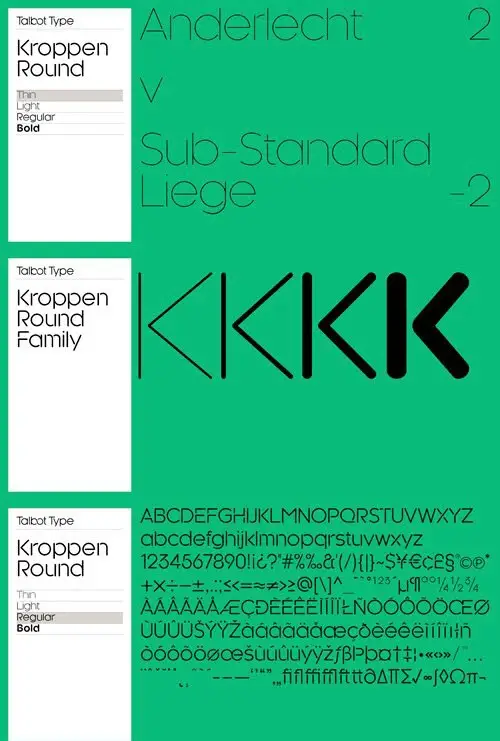
Kroppen Round Font Family
Kroppen Round is a geometric, stencil-style font based on Talbot Type Kaleko Round, and is available in four weights. Kroppen is not strictly a stencil font given that several characters, notably the O, are not stencilled. The design has more to do with achieving each character from a single stroke, or series of single strokes.